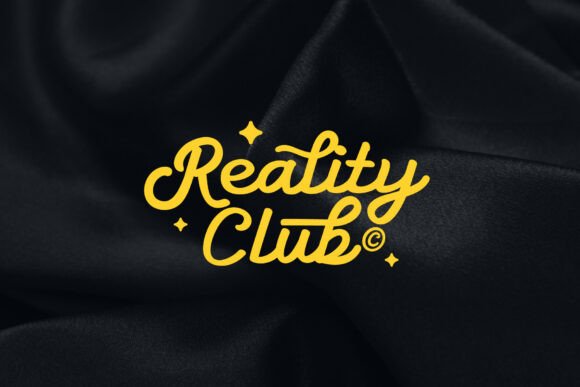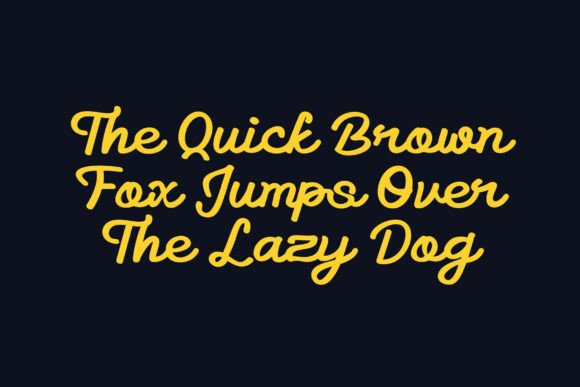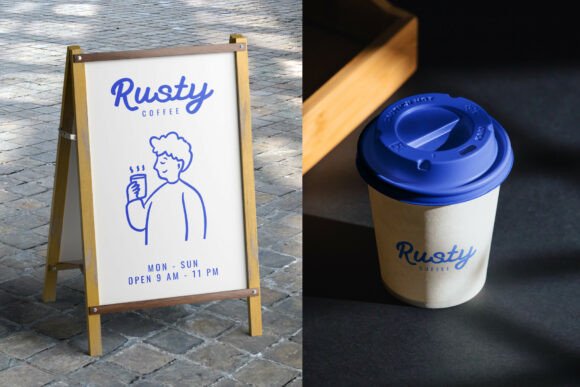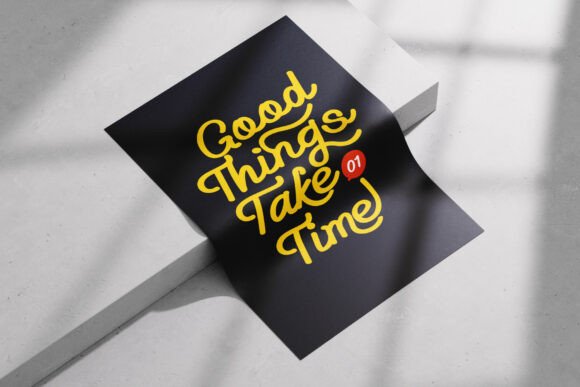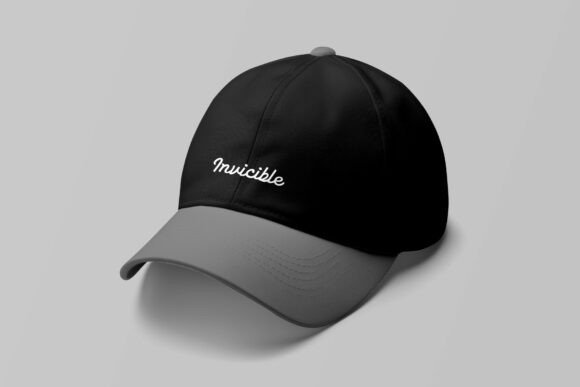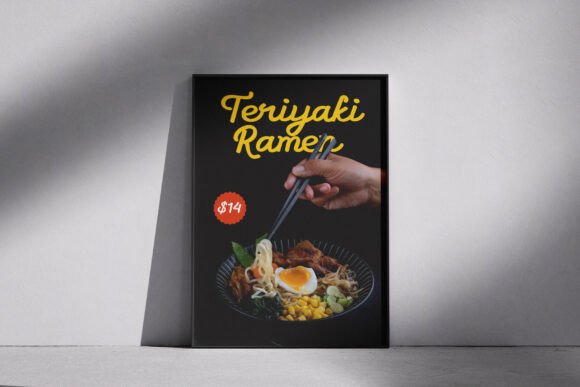
Get Ready to Groove: Unleash the Power of Groovy Shoeline Font
Have you ever stumbled upon an old vinyl record or a vintage poster and felt an instant rush of creative inspiration? That’s exactly what happened when I first laid eyes on the Groovy Shoeline Font. Its bold, bouncy script immediately caught my attention, transporting me back to the groovy era of the 70s.
Designed to bring a perfect blend of retro charm and modern elegance, the Groovy Shoeline Font is a game-changer for designers. With its smooth flowing strokes and handcrafted feel, this typeface is perfect for logos, branding, merchandise, and social media posts that need a fun yet professional touch. Whether you’re crafting a nostalgic brand identity or a bold design statement, the Groovy Shoeline Font adds rhythm and personality to your type toolbox.
What sets this font apart is its versatility and extensive features, making it a valuable addition to any designer’s toolkit. With extensive ligatures, multilingual support, and alternate characters, you’ll have endless possibilities to create unique and eye-catching designs.
Groovy Shoeline Font Key Features
- Font Family: Groovy Shoeline Font is a unique, hand-drawn font that features a shoeline-inspired design.
- Character Set: Includes a comprehensive set of characters, including uppercase and lowercase letters, numbers, and punctuation marks.
- Unique Characteristics: Features a distinctive, hand-drawn style with bold lines and playful flourishes, making it perfect for creative and artistic applications.
Designer Review: Groovy Shoeline Font
I recently had the chance to work with the Groovy Shoeline Font, and I must say it’s a unique addition to any design project. Here’s my honest review.
- The Groovy Shoeline Font has a fun, playful vibe that’s perfect for projects that need a bit of whimsy.
- The font is highly customizable, with a wide range of styles and colors to choose from.
- The font is also highly legible, even at smaller font sizes, making it perfect for digital projects.
- The font can feel a bit too “out there” for more serious or professional projects.
- The font may not be the best choice for projects that require a more traditional or classic look.
- The font can be a bit difficult to pair with other fonts, so you may need to spend some time finding the perfect match.
The Groovy Shoeline Font is a great addition to any designer’s toolkit, but it’s not for every project. If you’re looking for a fun, playful font that’s perfect for digital projects or kids’ materials, this font is a great choice. However, if you’re looking for a more traditional or classic look, you may want to consider other options.
Getting the Most Out of Groovy Shoeline Font
Here are some tips for getting the most out of Groovy Shoeline Font:
- Use it for creative, eye-catching headlines and titles.
- Pair it with a clean, sans-serif font for body text.
Some common use cases for Groovy Shoeline Font include:
- Designing eye-catching posters and flyers.
- Creating stylish social media graphics.
- Developing unique branding and logos.
Great Vibes is a modern, elegant script font perfect for creating a sophisticated and stylish design. It’s ideal for use in titles, headings, and quotes where a touch of sophistication is needed. Great Vibes has a similar flair to Groovy Shoeline Font, but with a more refined and subtle look.
Carolyna Pro is a beautiful, high-end script font with a luxurious feel. It’s perfect for use in premium branding, packaging, and editorial design where a high-end look is required. Carolyna Pro has a similar playful and elegant feel to Groovy Shoeline Font, but with a more refined and polished look.
For optimal readability, we recommend using the Groovy Shoeline Font at a minimum size of 12 points. However, feel free to experiment with different font sizes to achieve the desired visual effect for your project.